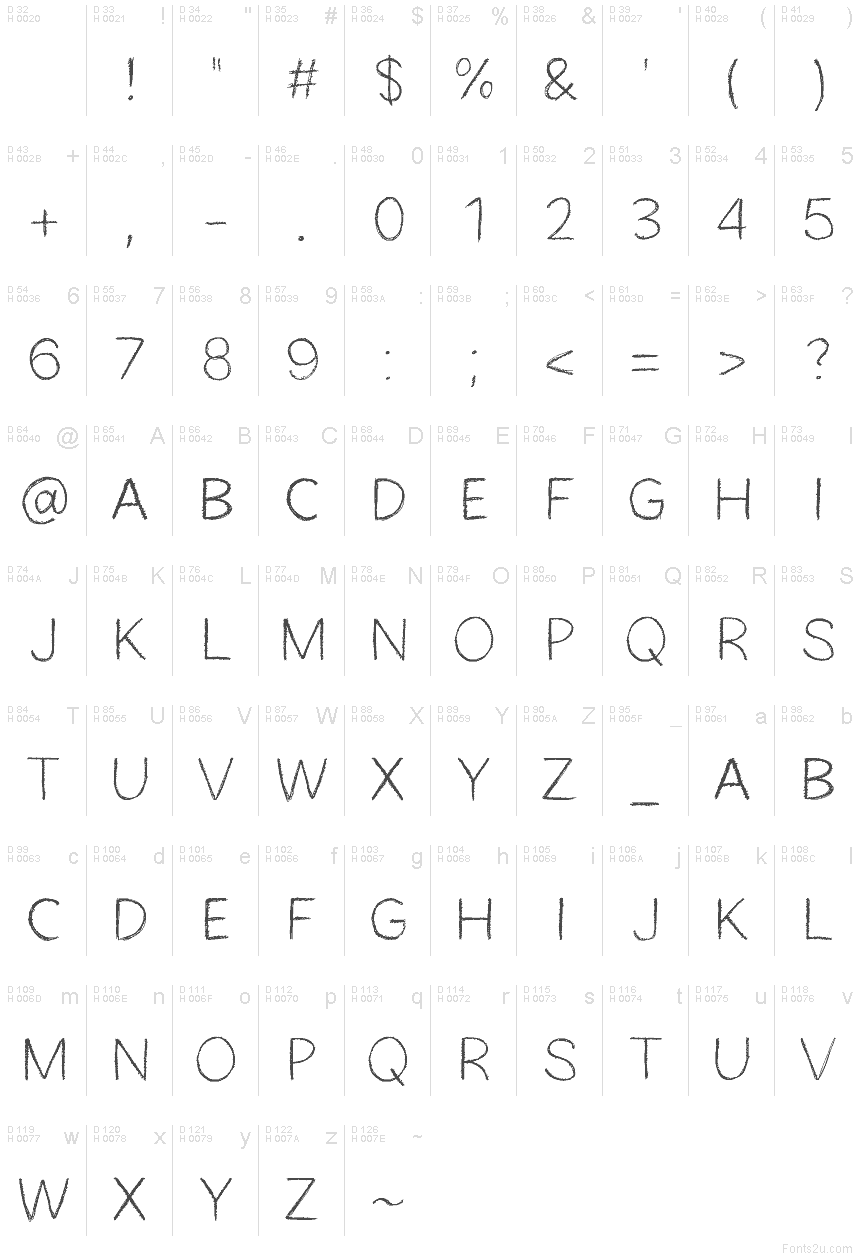
Silent Thinker
Silent Thinker font by MJType blends a light script style with trashy grunge aesthetics, creating a textured, distressed feel. This tranquil font captures a uniquely rough and handwritten look with subtle grunge elements and an overall uneven structure. Its amazing abilities make it suitable to be seen everywhere around.